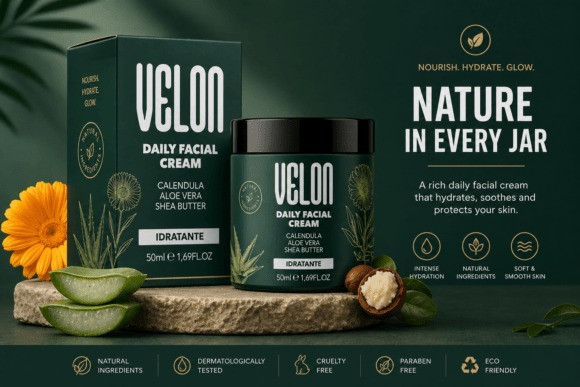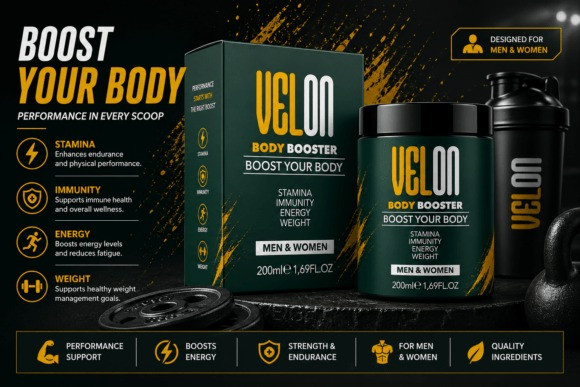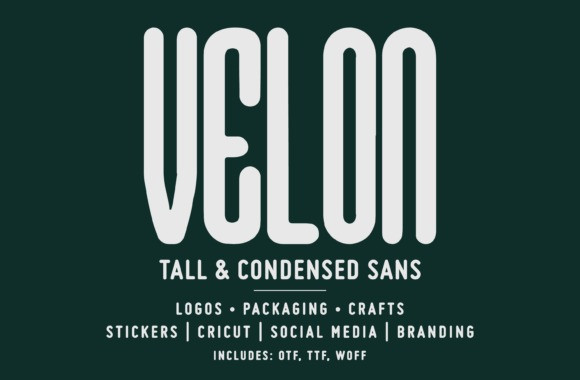
VELON FONT
Velon Font is a modern tall and condensed sans serif typeface designed for strong, clean, and space-efficient typography. Its elongated structure and smooth rounded forms create a distinctive vertical rhythm, making it ideal for impactful layouts and refined visual identities.
The font features a balanced construction with consistent stroke weight, ensuring clarity and legibility across both digital and print applications. Its narrow proportions allow more content in less space while maintaining a bold and contemporary aesthetic.